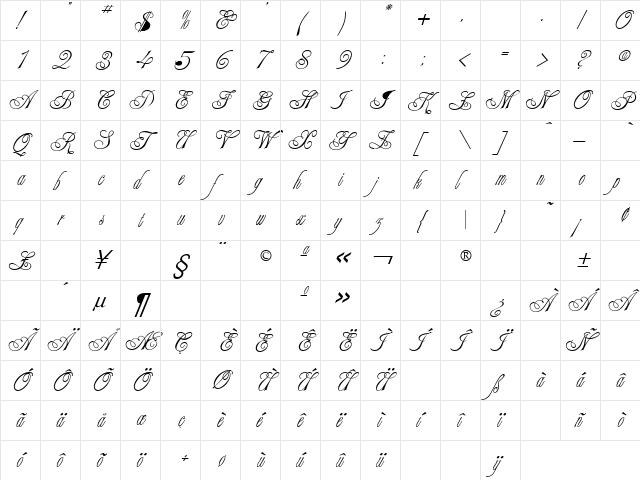
Tsarine Anastasia Script Regular
Design Context for Tsarine Anastasia Script Typeface
Tsarine Anastasia Script flows with the natural rhythm of handwritten lettering, making it ideal for designs that call for warmth and personal expression.
Font Pairing: Combine Tsarine Anastasia Script with a simple geometric sans for maximum contrast — the tension between flowing curves and clean structure is a classic typographic pairing.
Pro Tip: Use Tsarine Anastasia Script for short runs of text — names, titles, or taglines. Extended body copy in script faces tires the eye quickly.